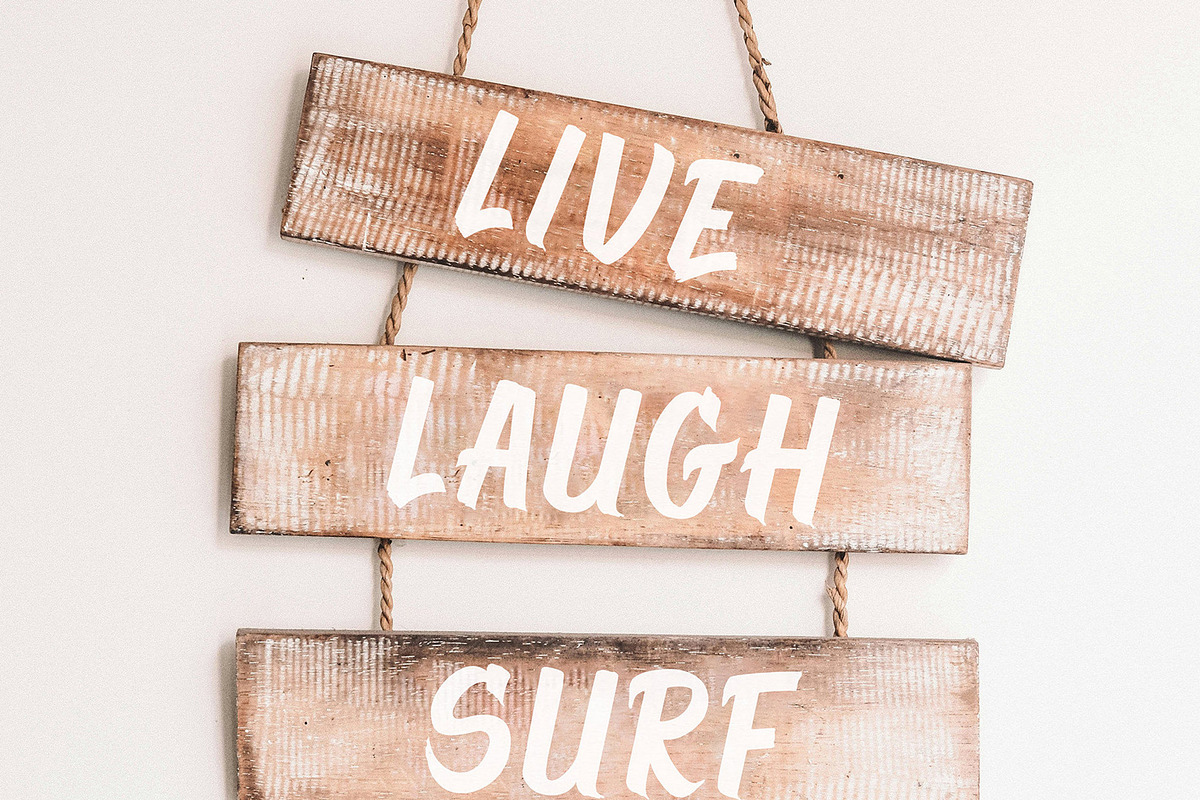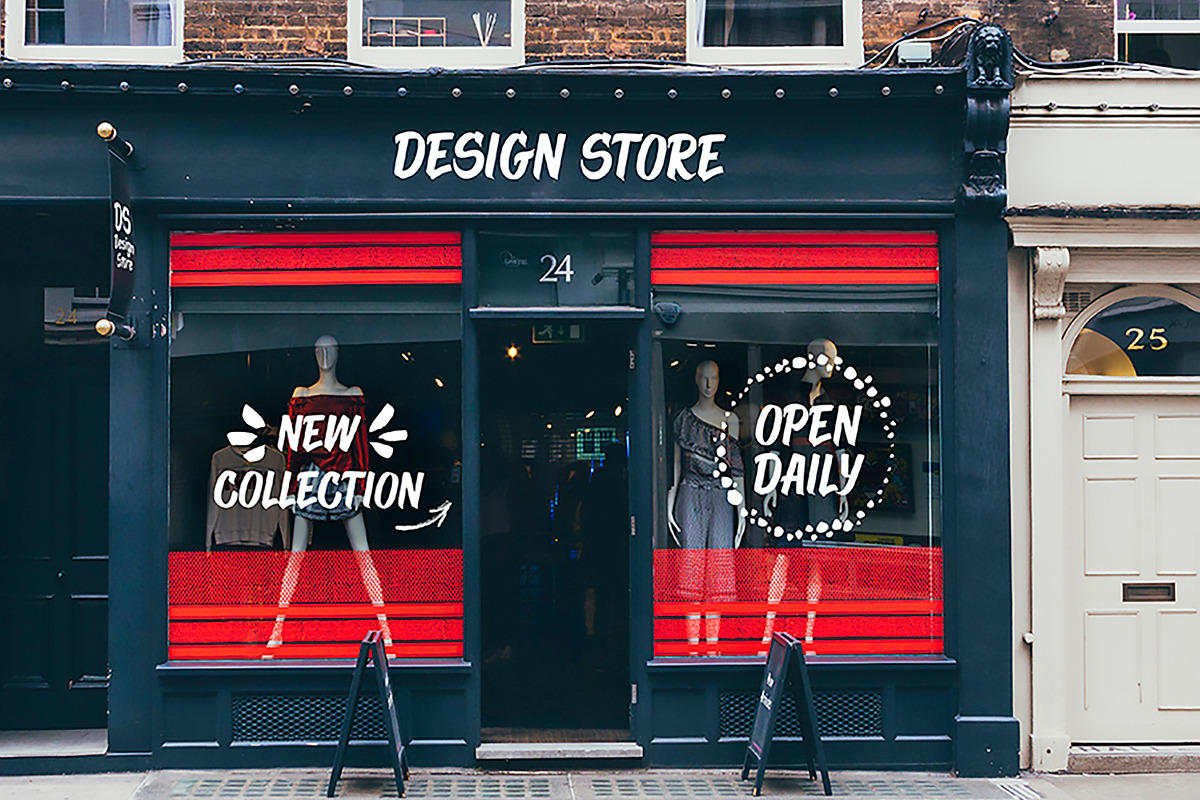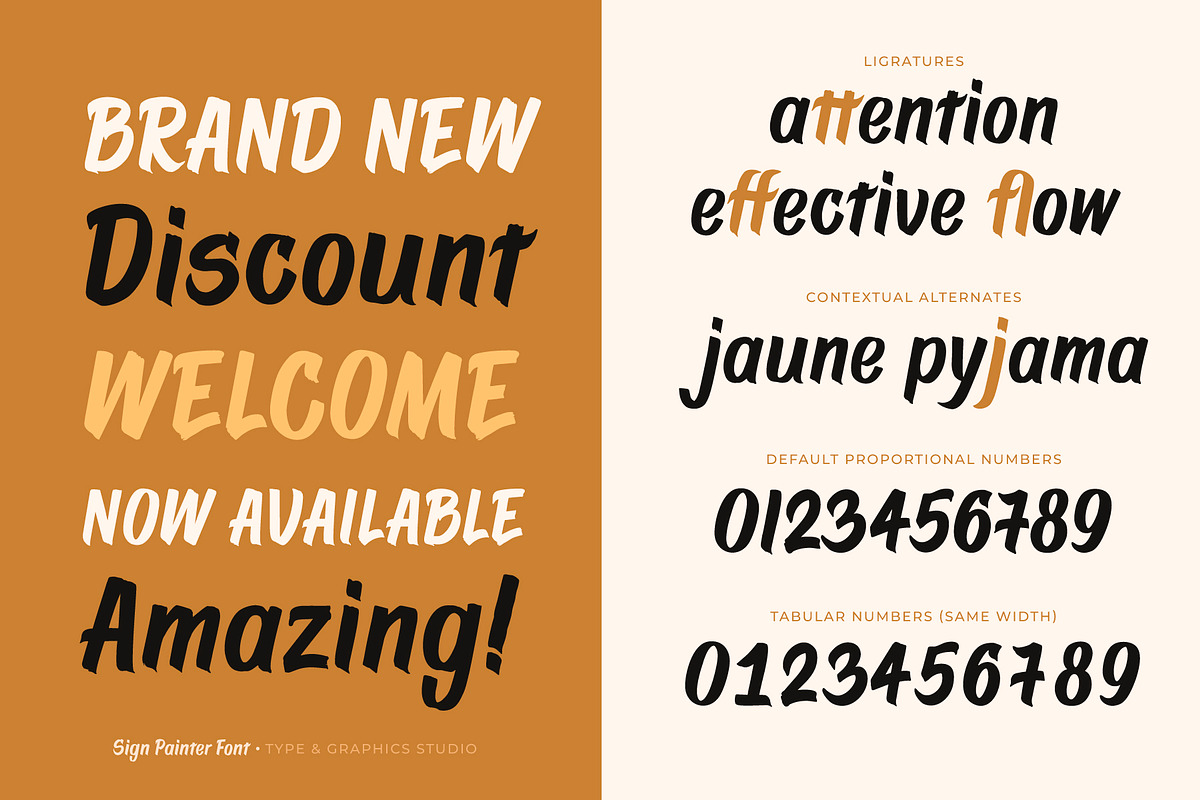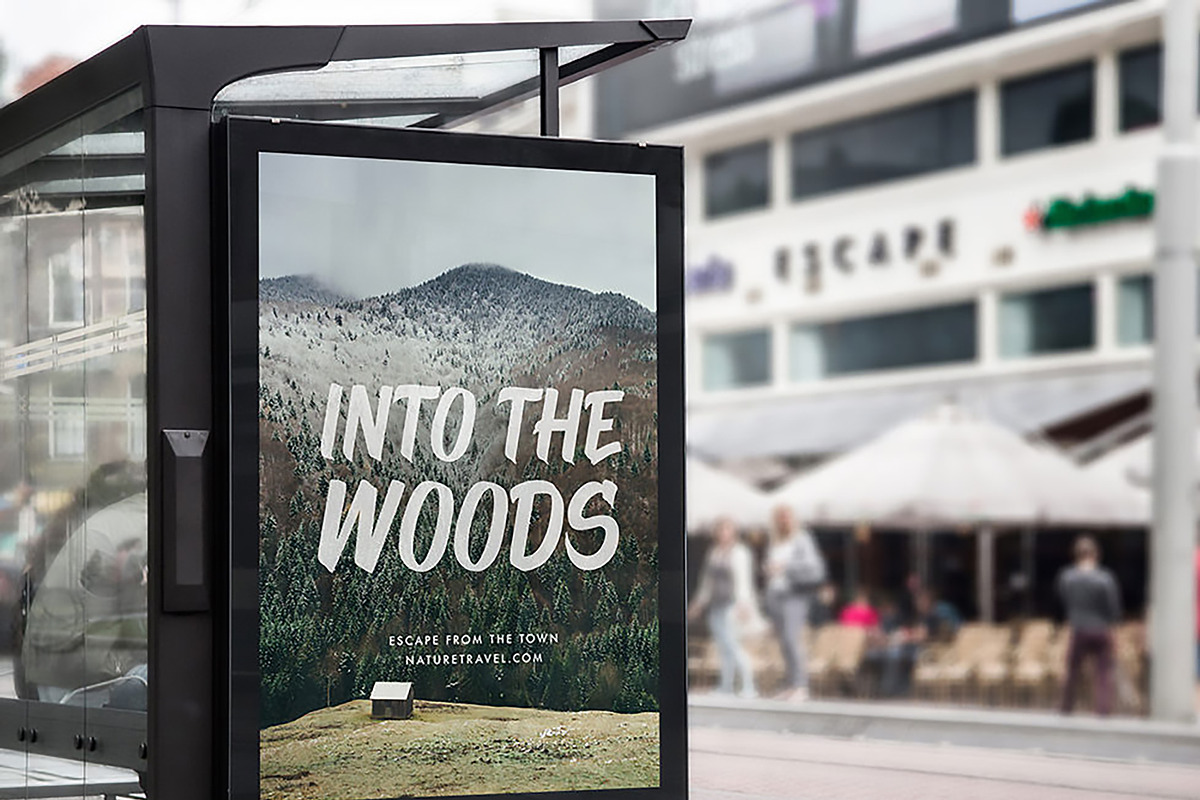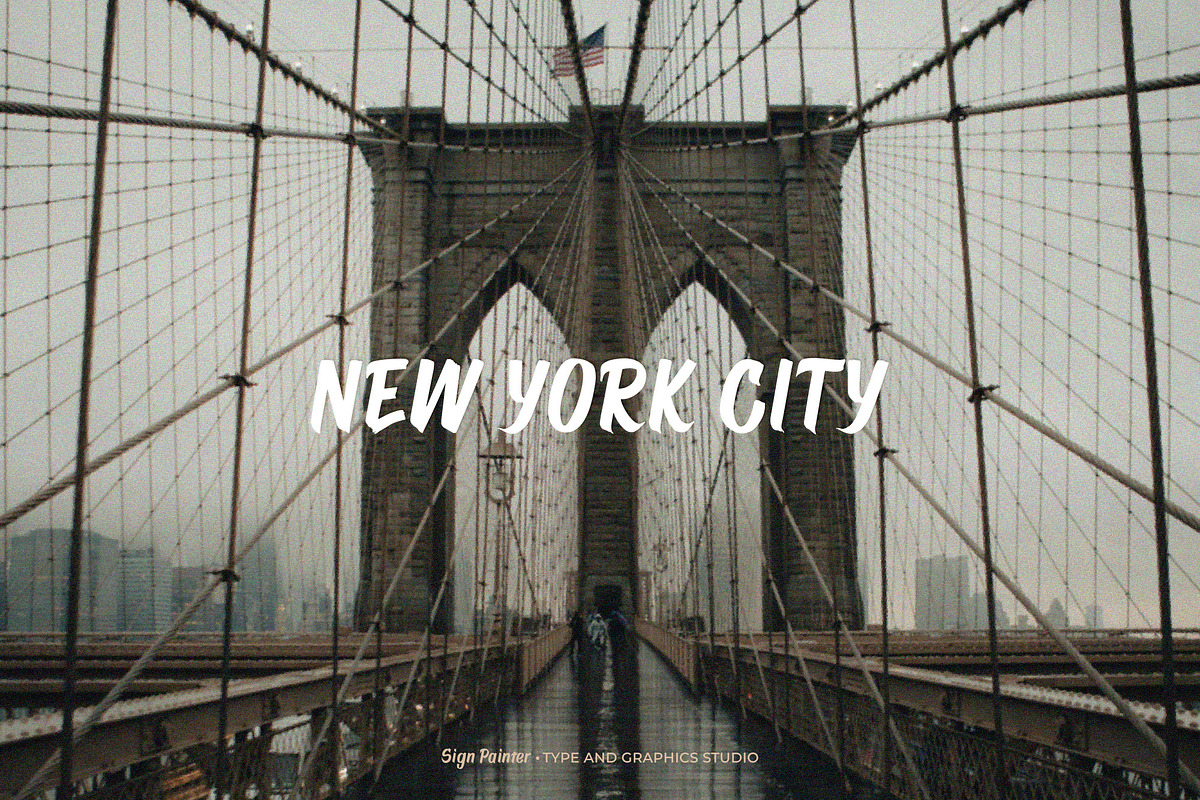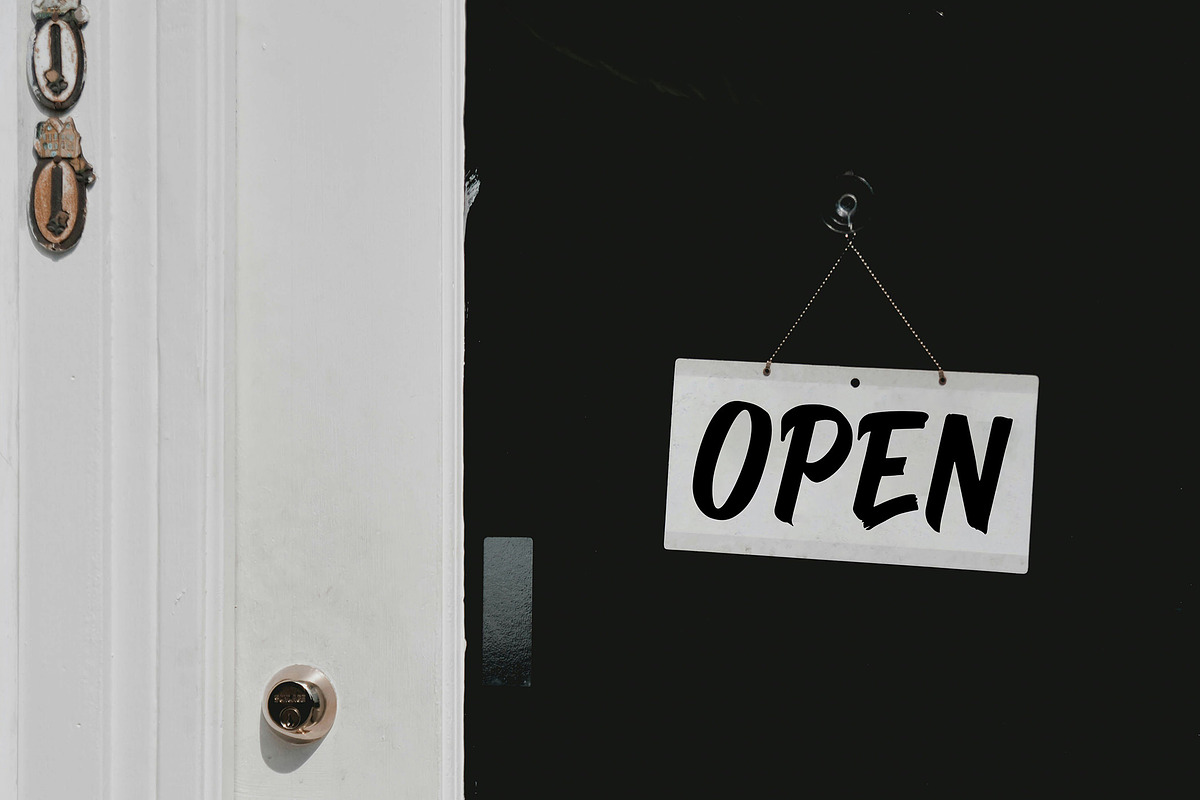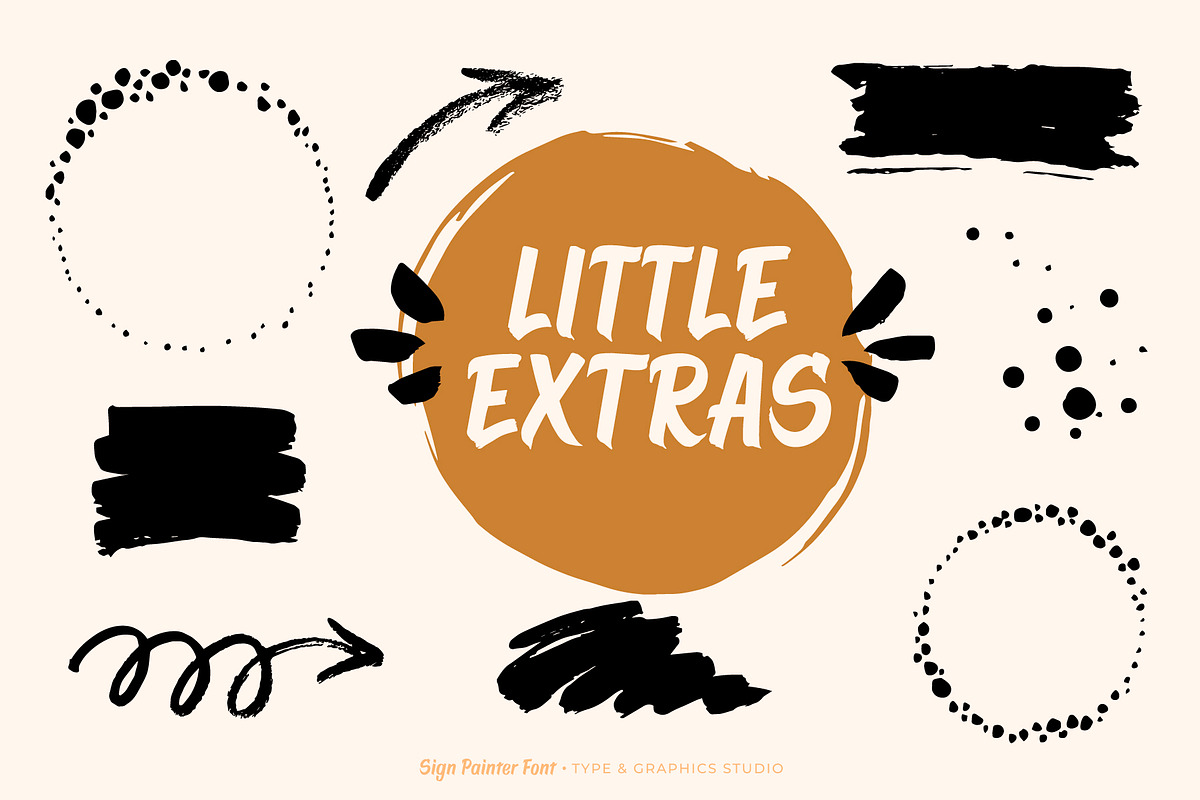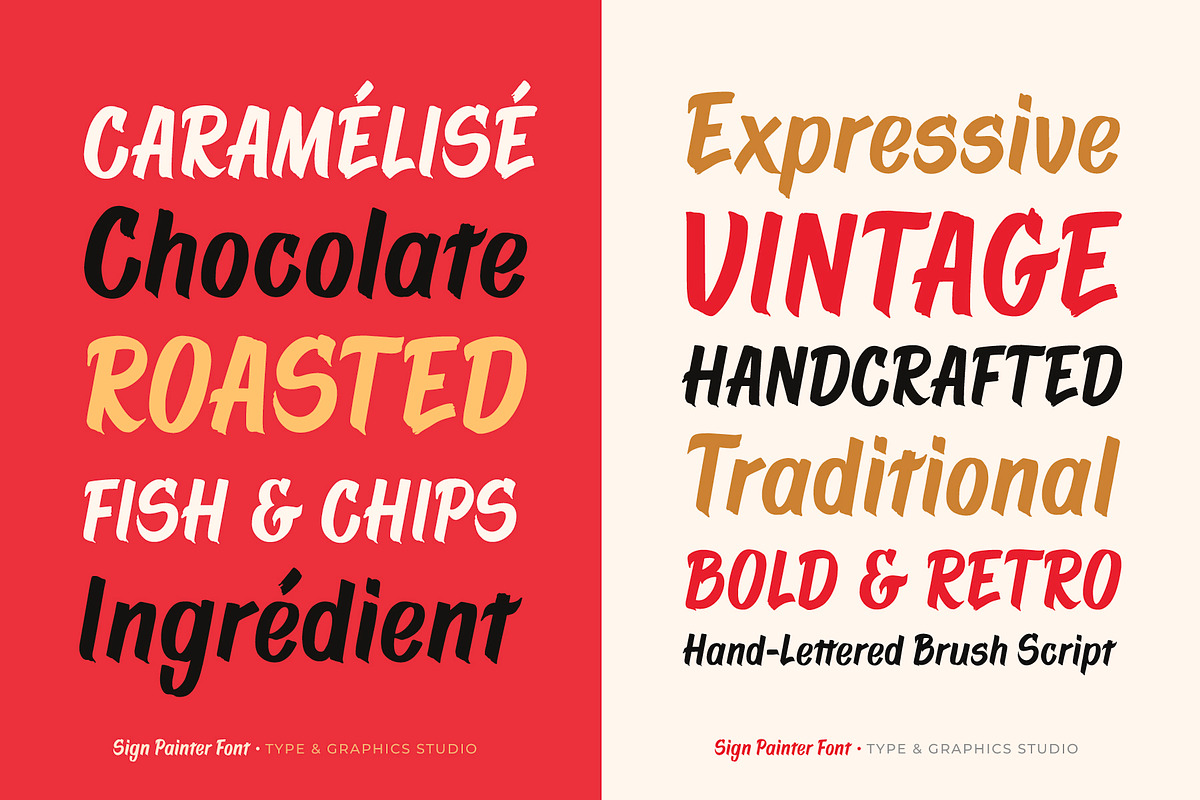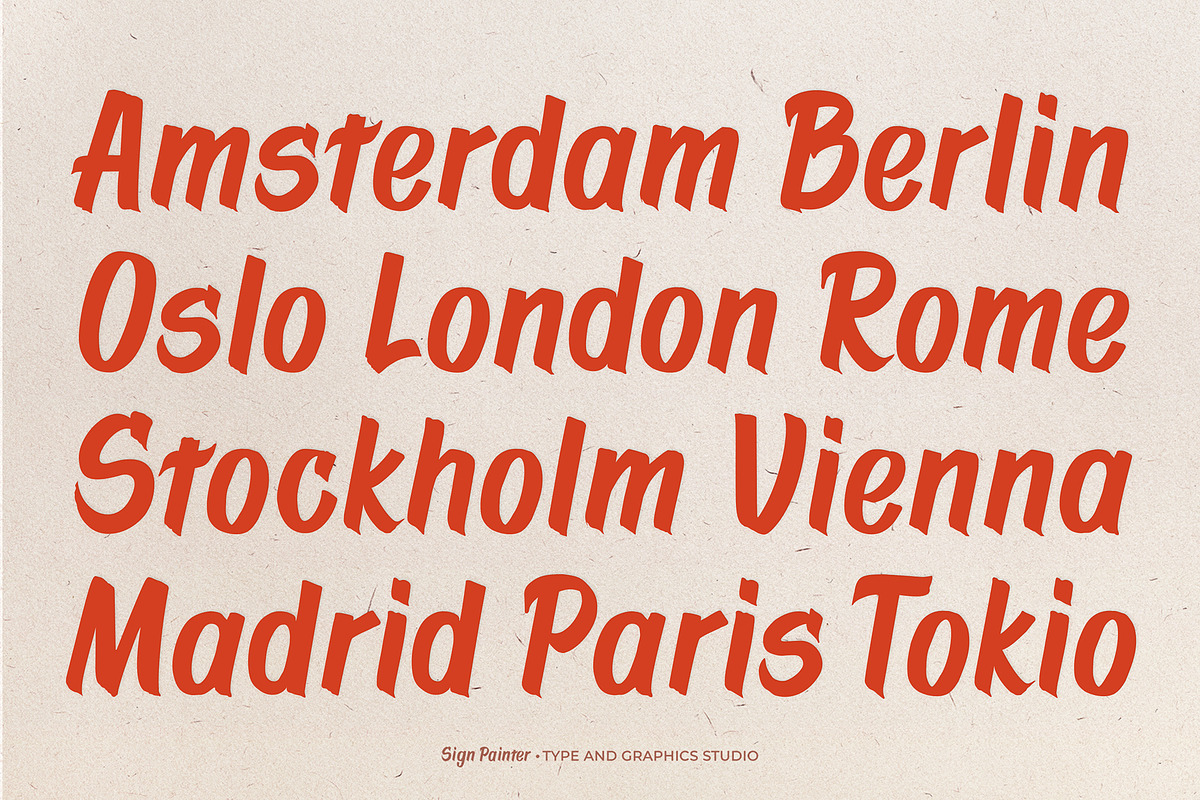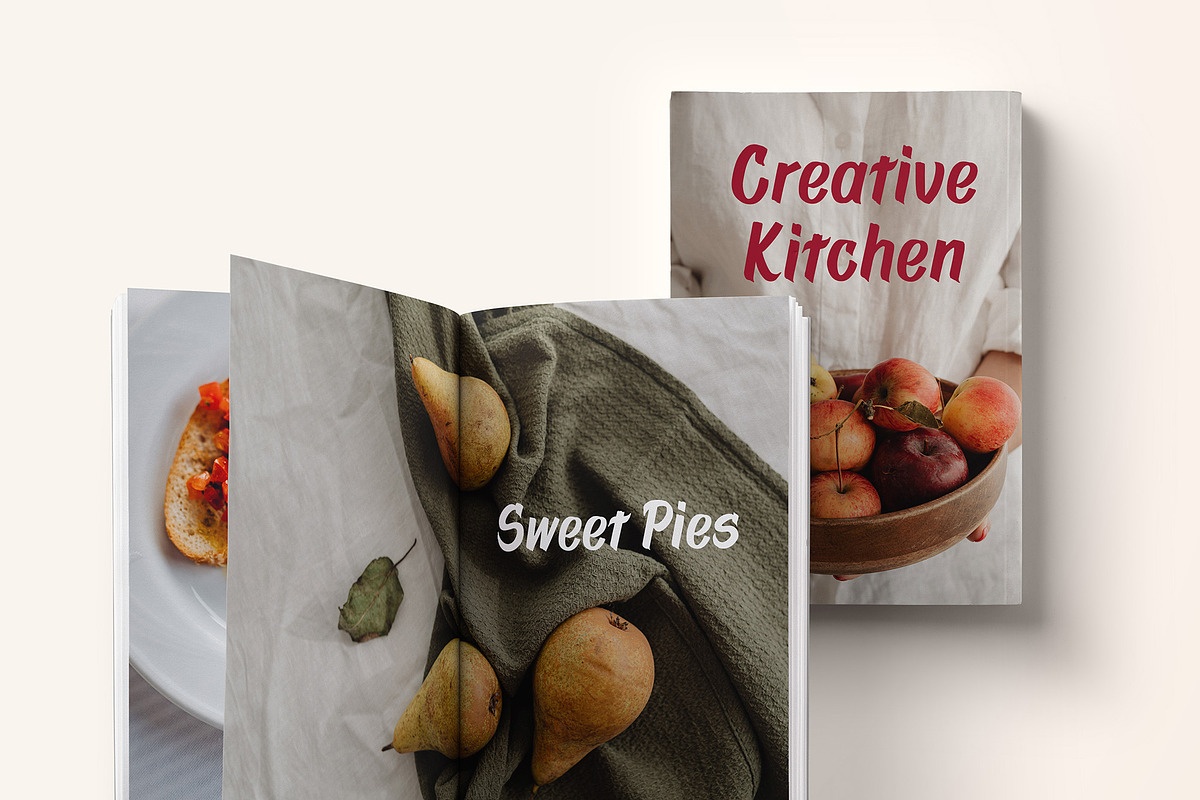
Sign Painter
The inspiration for the Sign Painter Display Font came from traditional signage and sign painting in the United States. This font captures the essence of classic American sign art, blending it with modern design sensibilities. It includes capital and lowercase characters, punctuation, numerals, symbols, ligatures, and international characters for most European languages. As a display typeface, Sign Painter is ideal for logotypes, signs, posters, product designs, print and digital ads, branding, and much more. Check out the previews for inspiration!